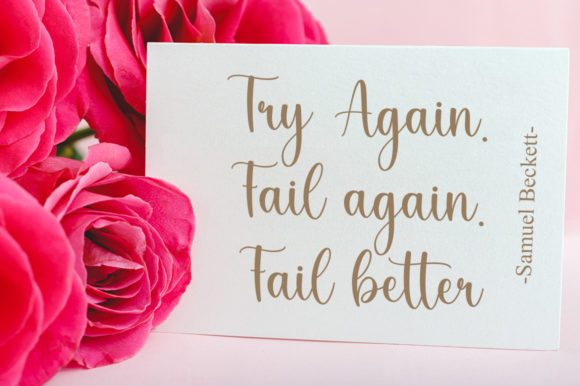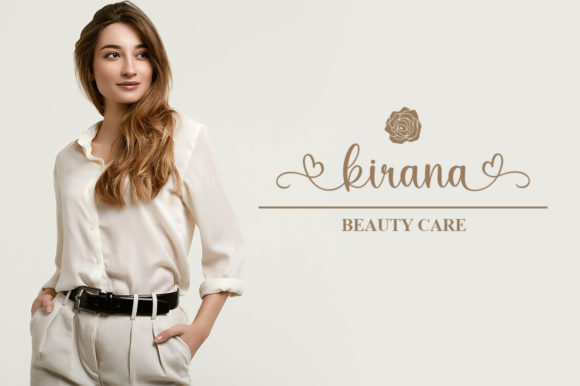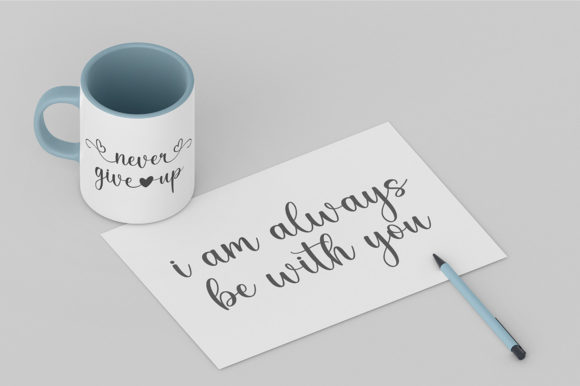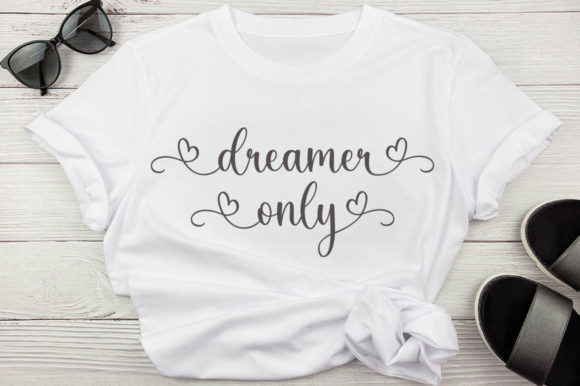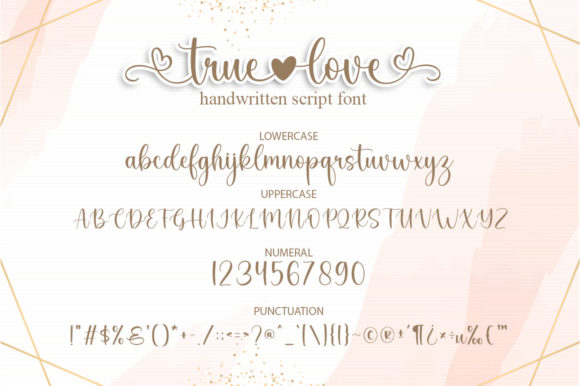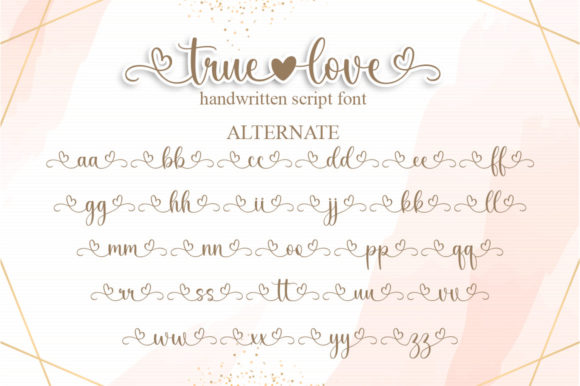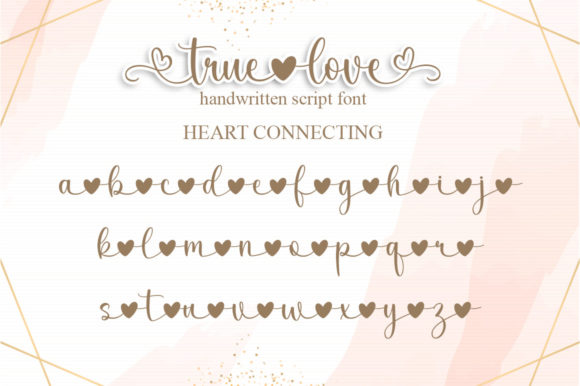
True Love Font
True Love Font: Elegant Handwritten Script for Romantic Designs
Fall in love with True Love – a breathtaking handwritten font that dances across the page with poetic grace. Every carefully crafted character flows seamlessly into the next, creating the perfect typographic expression for projects that deserve a touch of timeless romance.
Why True Love Captivates
• Exquisite Swashes: 22 decorative flourishes
• Perfect Proportions: Balanced for both headlines and body text
• Romantic Flow: Natural-looking letter connections
Enchanting Applications
Wedding Elegance
Ideal for:
• Laser-cut wedding invitations
• Foil-stamped place cards
• Calligraphed ceremony programs
Luxury Branding
Perfect for:
• Bridal boutique logos
• Perfume packaging
• Jewelry brand collateral
Happily Ever After Begins Here
Perfect Pairings
1. Classic Romance: with Great Vibes
2. Modern Elegance: with Montserrat Light
3. Vintage Charm: with Playfair Display